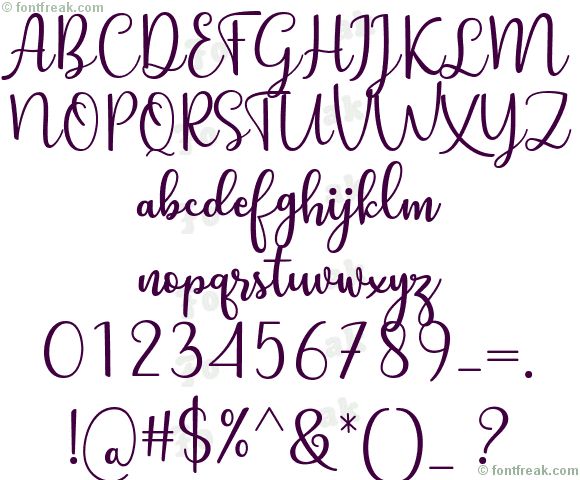
Still Loving
About Still Loving
The Still Loving font by Situjuh Nazara is a delightful script typeface that captures a sense of warmth and elegance. With its fluid, handwritten style, this font is characterized by a medium stroke weight that creates a balanced contrast, making it both legible and visually appealing. The letters exhibit a charming, flowing rhythm, enhanced by subtle decorative elements that infuse personality and character into any design. The spacing between characters is thoughtfully designed, allowing for easy readability without sacrificing style.
Ideal for a variety of applications, the Still Loving font shines in contexts such as wedding invitations, where its romantic flair can set the perfect tone for the occasion. It can also enhance the aesthetics of greeting cards, making each message feel more personal and heartfelt. For small businesses, this font is a wonderful choice for restaurant menus, as it conveys a welcoming atmosphere, enticing potential diners with its inviting appearance. Additionally, it works beautifully for branding projects and social media graphics, appealing to content creators looking to add a unique touch to their visuals.
The target audience for the Still Loving font includes graphic designers, small business owners, and content creators who seek to elevate their projects with a touch of elegance and charm. This font’s versatility makes it an excellent choice for anyone looking to make a lasting impression.
What sets the Still Loving font apart is its ability to blend sophistication with a casual, approachable feel. Its unique handwritten quality adds a personal touch to any design, making it a standout option for those seeking a font that is both stylish and functional. For those interested, the Still Loving font free download offers an opportunity to incorporate this enchanting typeface into your creative endeavors.